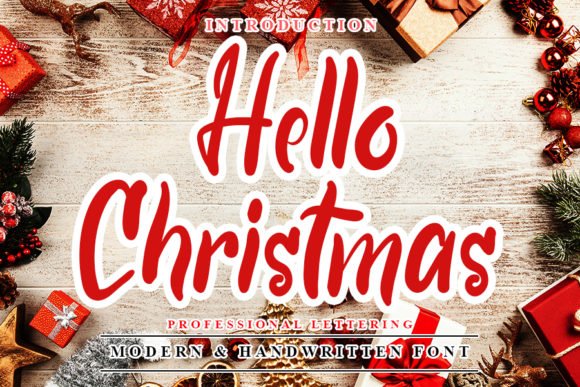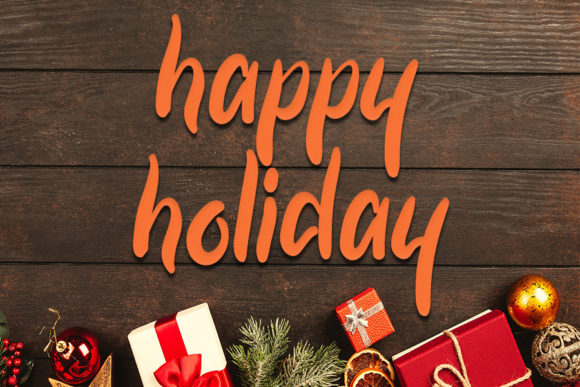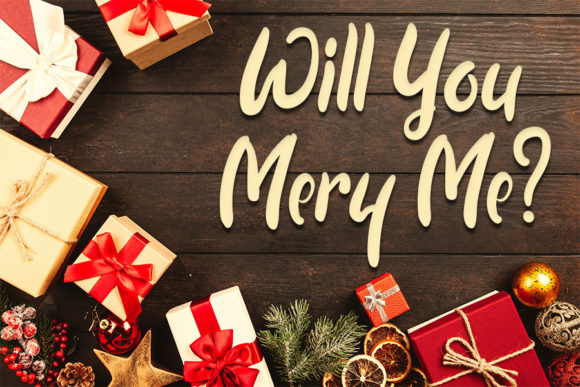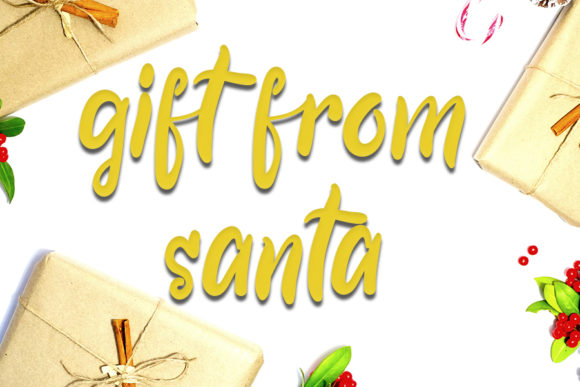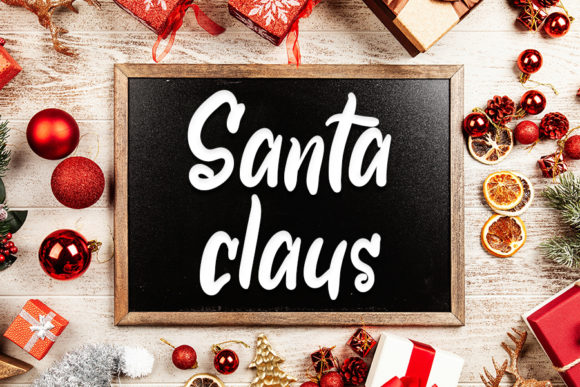
Deck the Halls with Holiday Cheer: Introducing Hello Christmas Font
As the holiday season approaches, I find myself strolling through the snow-covered streets, sipping hot cocoa, and getting into the festive spirit. It’s moments like these that remind me of the magic of Christmas – a time for warmth, love, and creativity. And speaking of creativity, have you ever stumbled upon a font that captures the essence of the holiday season?
That’s where the Hello Christmas Font comes in – a beautiful, handwritten font that’s perfect for adding a touch of whimsy to your designs. Whether you’re crafting a logo, branding, or a quote, this font is sure to bring your creations to life. Its unique and beautiful touch makes it a valuable addition to any designer’s toolkit, and its timeless charm ensures that it will remain a favorite for years to come.
- Unique Characteristic: Hand-drawn, cursive, and festive design elements, perfect for holiday-themed projects
Hello Christmas Font Review
As a designer, I was excited to dive into the Hello Christmas Font and see what it had to offer. Here’s my honest review:
- The font’s playful and festive feel is perfect for the holiday season.
- The font’s script and cursive elements add a touch of elegance and sophistication.
- The font’s character set includes a wide range of symbols and punctuation marks, making it easy to use in a variety of contexts.
- The font may be too bold and eye-catching for some designs, so be mindful of the balance with other elements.
- The font’s size may become too large for small text, so be sure to adjust accordingly.
- The font may not be the best choice for formal or professional designs, as it’s more suited to playful and casual projects.
Overall, the Hello Christmas Font is a fun and festive addition to any holiday design project. While it may have some limitations, it’s perfect for projects that need a playful touch. I’d definitely recommend it for designers looking to add some holiday cheer to their designs.
The “Hello Christmas Font” is perfect for creating festive holiday designs, such as:
- Holiday cards and invitations
- Christmas party decorations and signage
- New Year’s Eve and winter-themed social media graphics